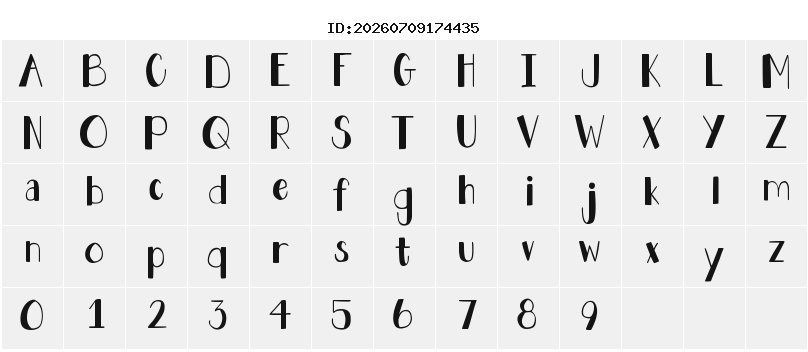
DJB  Holly Jolly Bold Preview
• Font Name: DJB Holly Jolly Bold
• Full Font Name: DJB Holly Jolly Bold
• Version: Version 1.00 November 4, 2014, initial release
About DJB Holly Jolly Bold.ttf
DJB Holly Jolly Bold.ttf is a modern, elegant sans-serif font designed for ultimate readability and visual harmony. Perfect for branding, headlines, web design, and print materials.